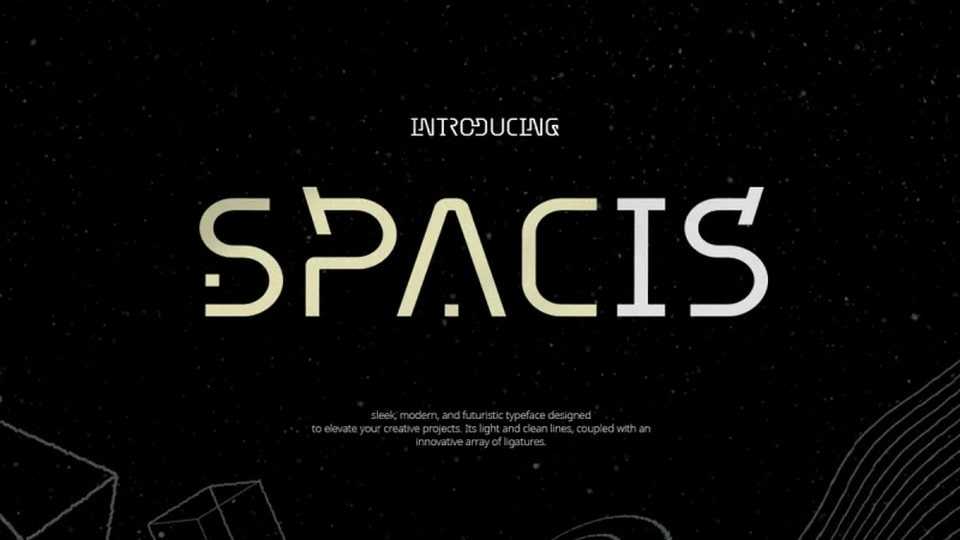
Download Spacis font, a sleek, modern, and futuristic typeface designed to elevate your creative projects, a perfect choice for anyone seeking a contemporary and professional aesthetic.